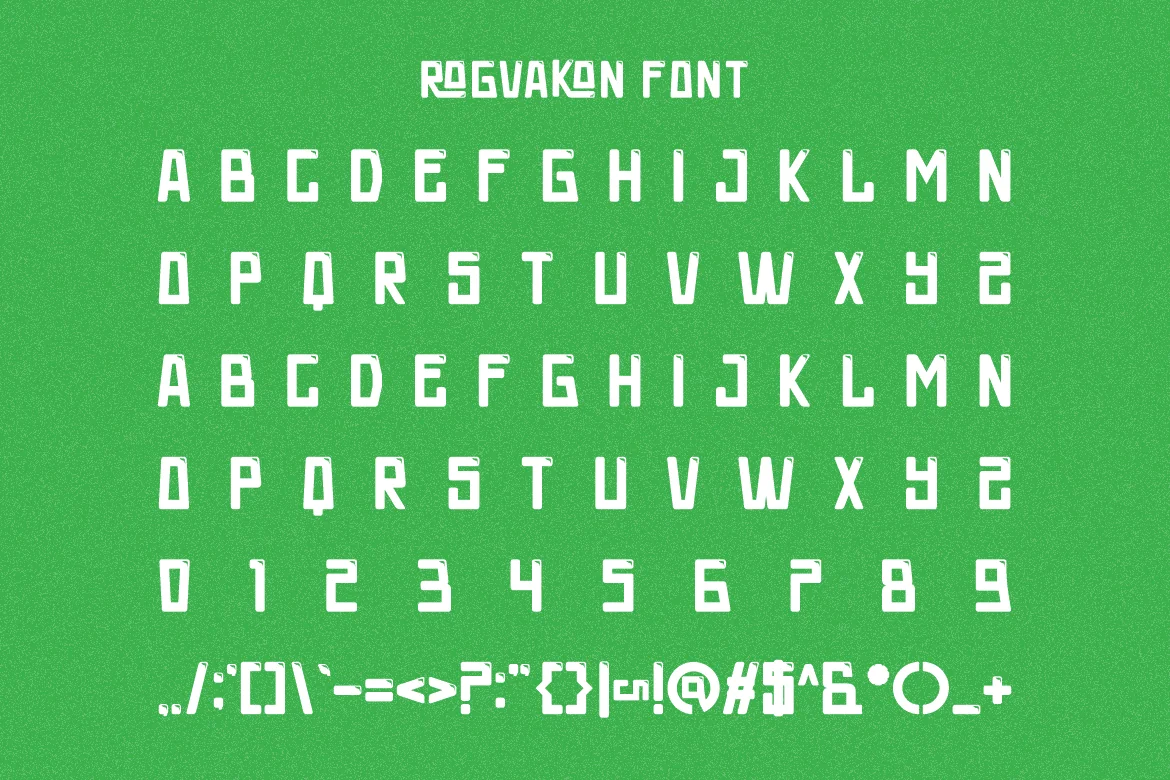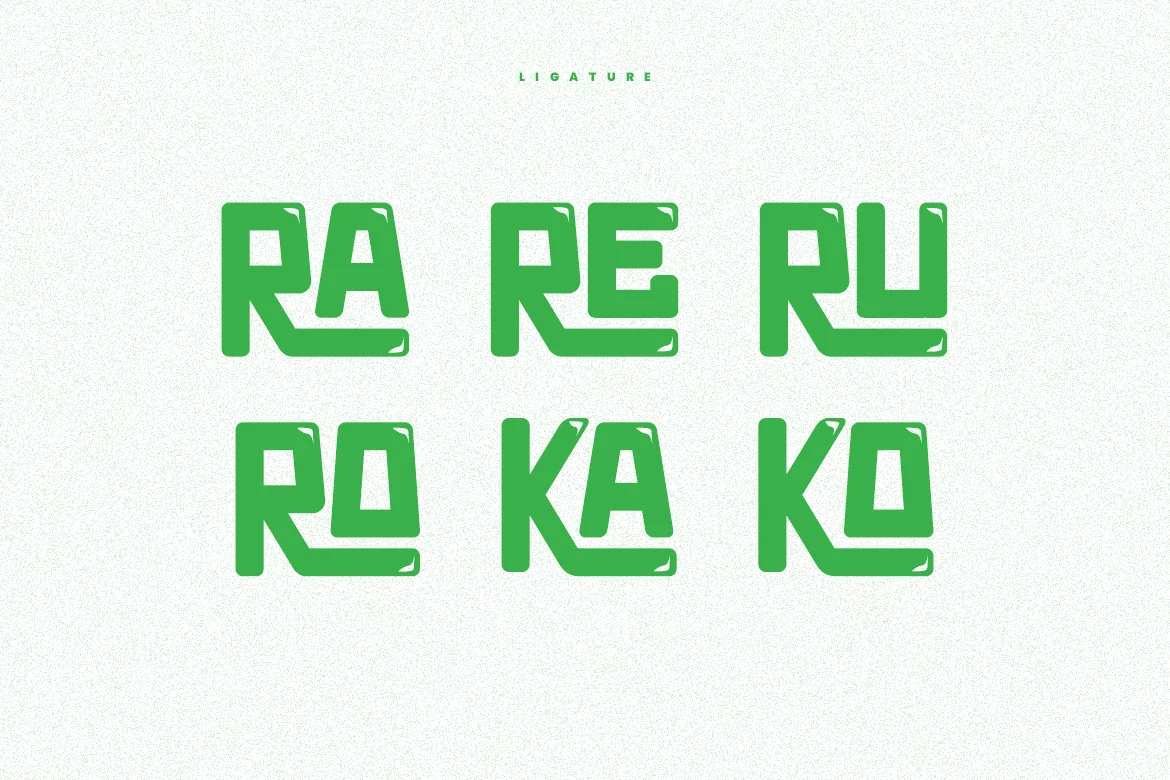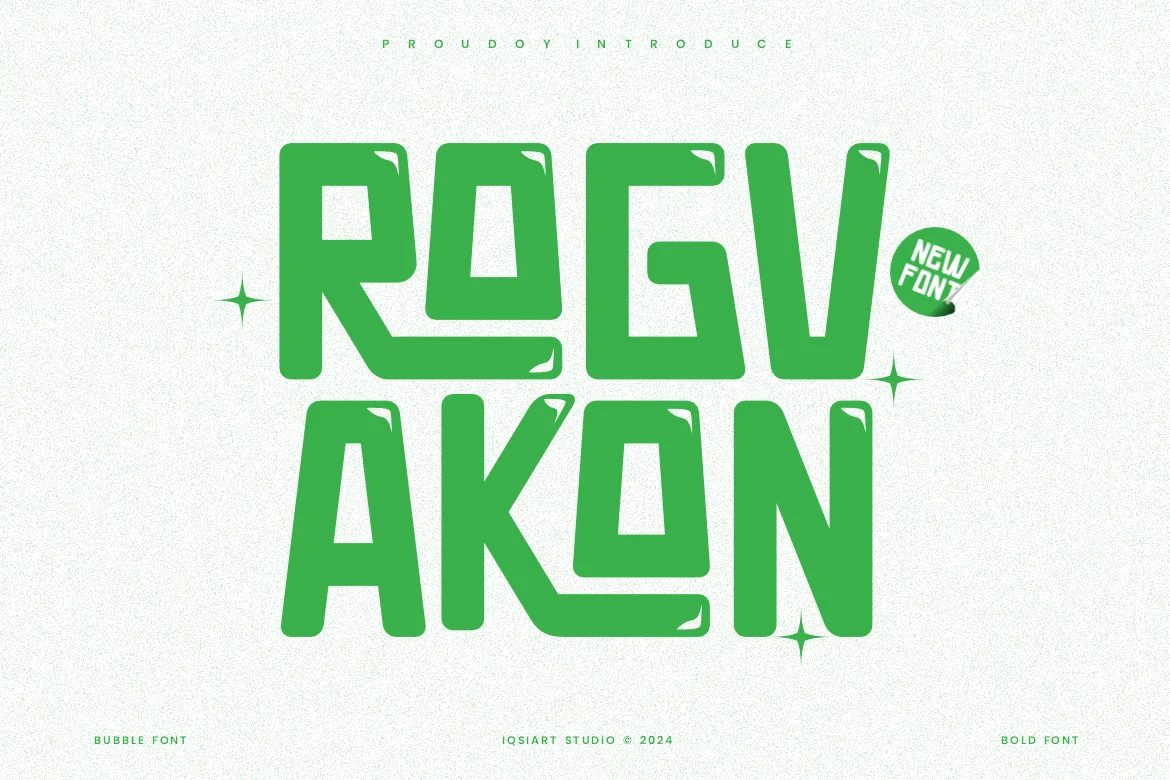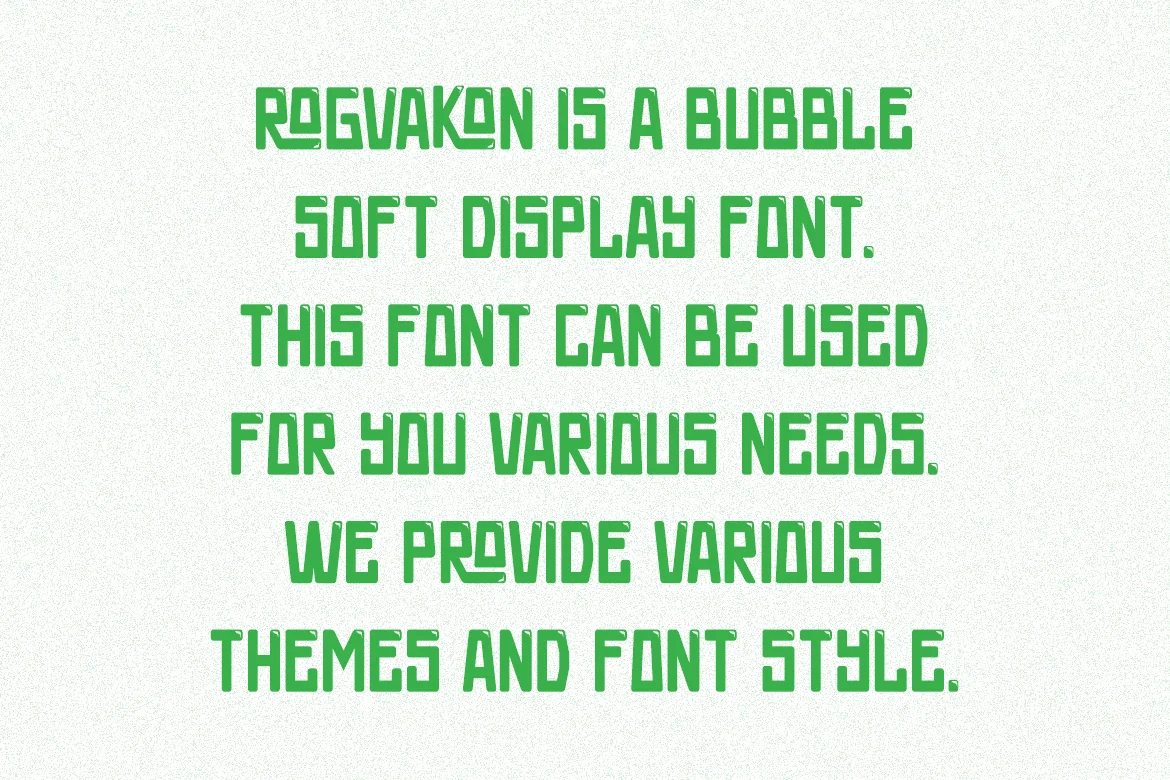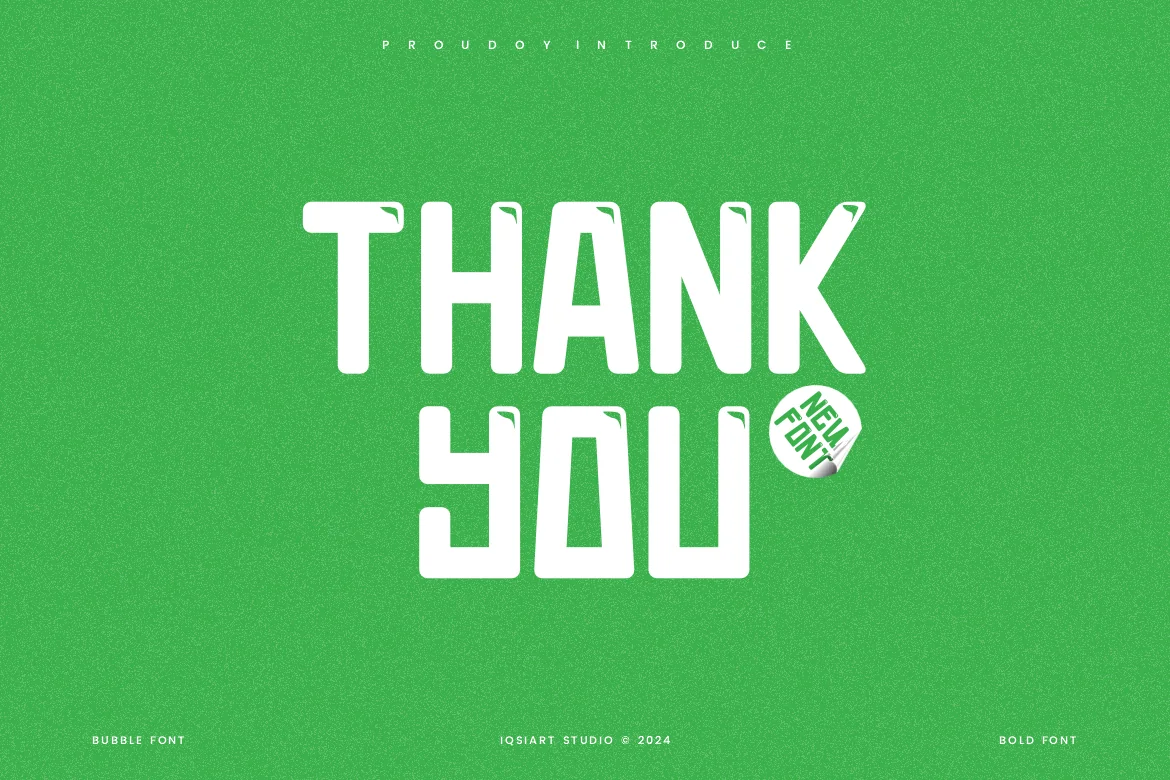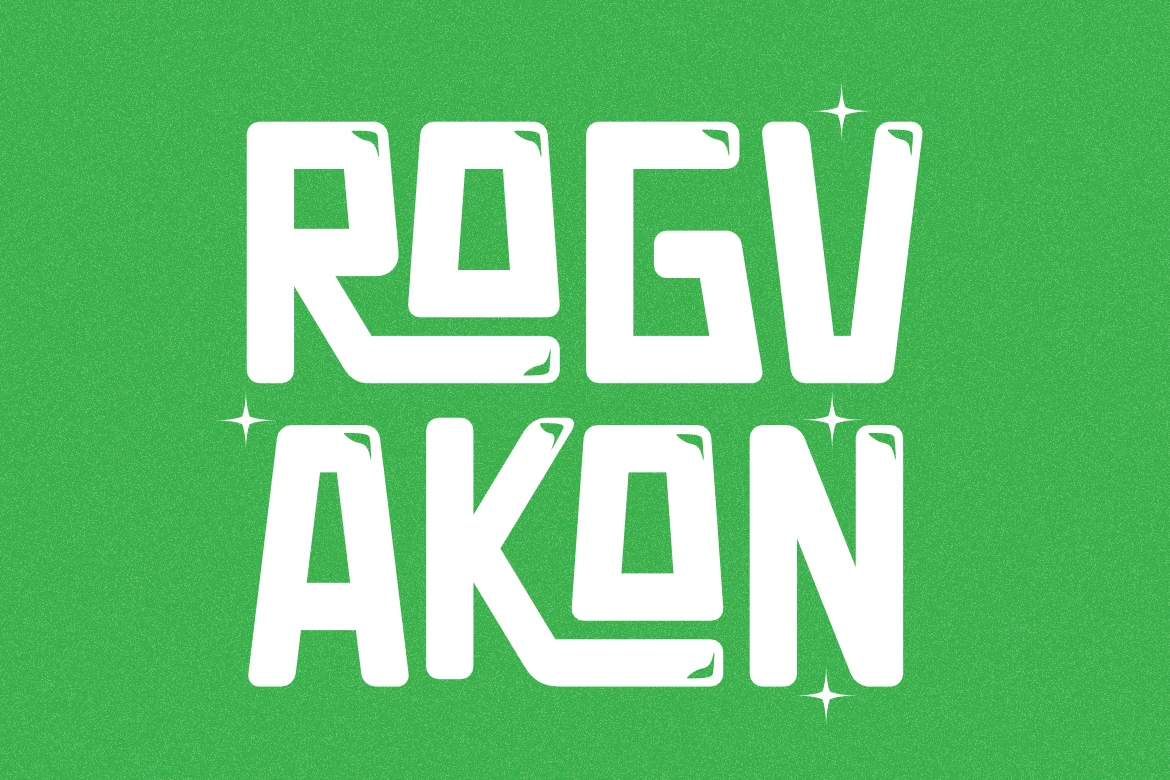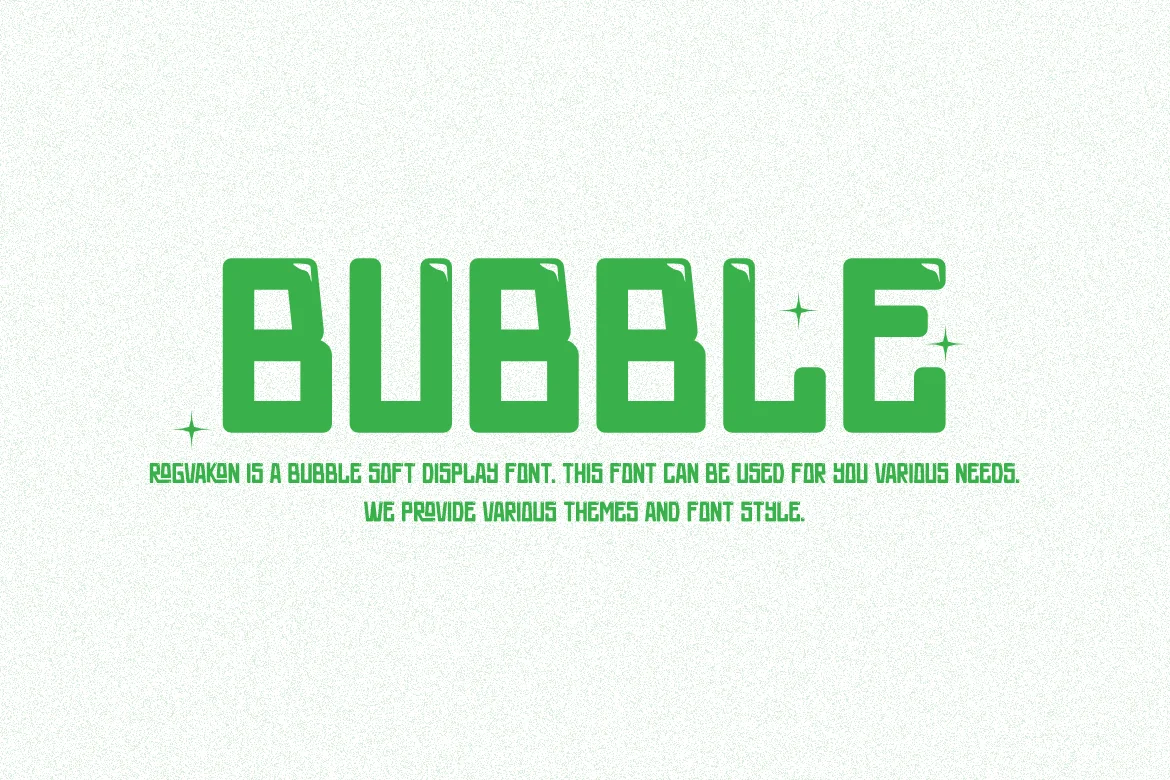
Rogvakon – Bubble Soft Font
Rogvakon Font is a best and authentic display font.
This font can be used for your various needs.
We provide various themes and font styles.